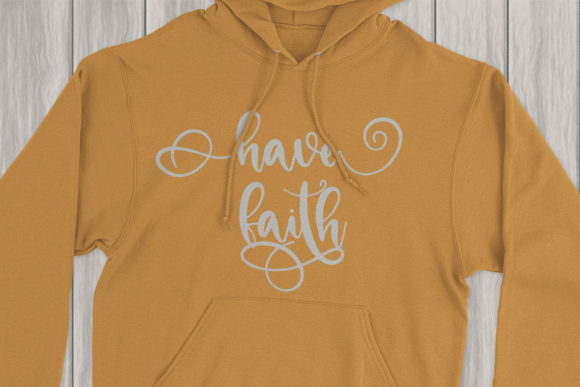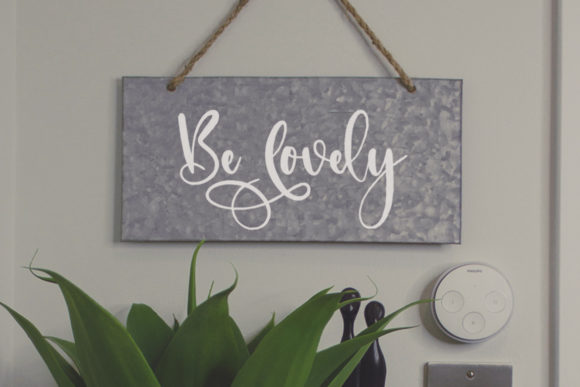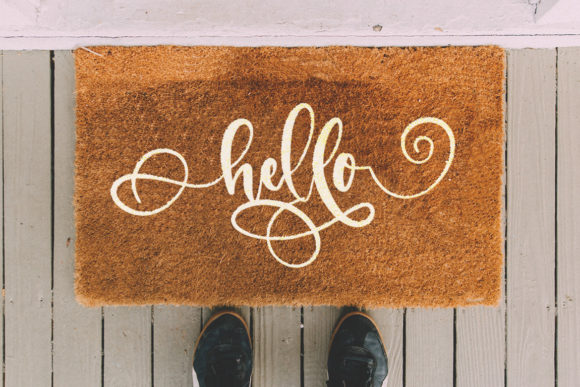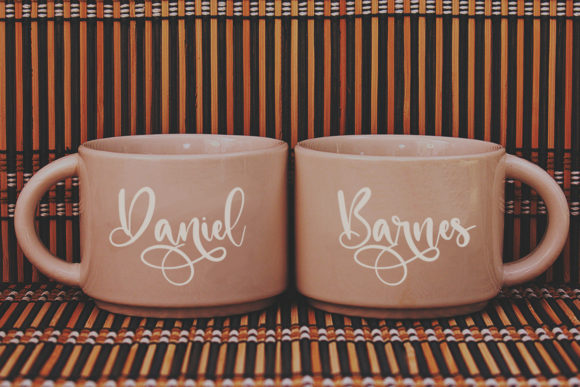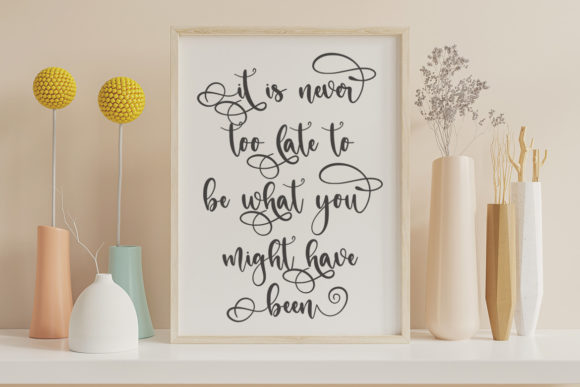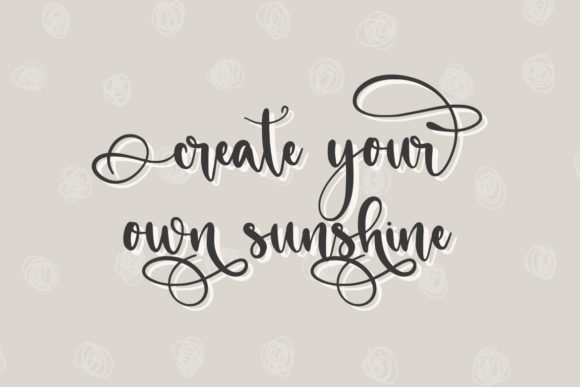
Introduction to Ronde Font
Have you ever stared at a blank page, struggling to find the perfect font to bring your creative project to life? We’ve all been there – pouring over design resources, testing out different fonts, and still feeling like something’s missing. For me, it’s moments like these that I’m reminded of the importance of having a reliable design resource in my toolkit.
That’s why I’m excited to share with you the Ronde Font, a beautiful and highly customizable script font that’s sure to elevate your designs. With its relaxed, asymmetrical feel and extensive glyph set, Ronde Font is the perfect addition to any project – whether you’re working with a transparent background or a high-quality image.
Key Features of Ronde Font
- High-quality design resource for creative projects, perfect for logo design, branding, and typography.
- Unique characteristics include a distinctive rounded shape and elegant lines, making it perfect for creating eye-catching designs.
- Can be used for a variety of design projects, from business cards and brochures to website headers and social media graphics.
Honest Review: Ronde Font
As a designer, I’m always on the lookout for high-quality fonts that can elevate my creative projects. Recently, I stumbled upon the Ronde Font, and I must say it’s a gem. ✨
The Ronde Font is a beautiful, elegant script font that’s perfect for adding a touch of sophistication to your designs. It’s incredibly versatile and can be used for a wide range of projects, from wedding invitations to product packaging. The font is available for free download, making it a fantastic resource for designers on a budget.
Here are some of the things I love about the Ronde Font:
- High-quality design: The Ronde Font is well-crafted and has a smooth, even texture that’s pleasing to the eye.
However, there are a few limitations to the Ronde Font:
- Limited character set: The font only includes a limited character set, which may not be suitable for more complex projects.
- No bold or italic styles: The font is only available in regular style, which may limit its use in certain situations.
Overall, I’m really impressed with the Ronde Font. It’s a beautiful, high-quality font that’s perfect for adding a touch of elegance to your designs. While it has a few limitations, it’s a great resource for designers on a budget. ✨
Tips for Getting the Most Out of Ronde Font
To get the most out of Ronde Font, experiment with different font sizes, colors, and styles to find the perfect combination for your design project. You can also use Ronde Font in conjunction with other design resources to create a unique and eye-catching design.
Ronde Font is ideal for any creative project that requires a high-quality, versatile font. Some common use cases include: